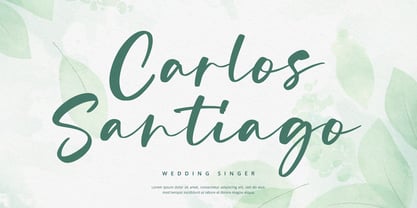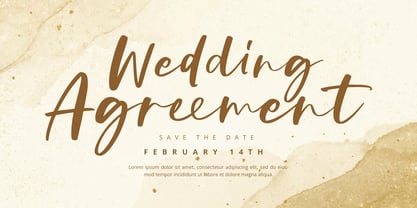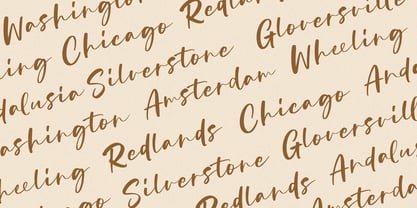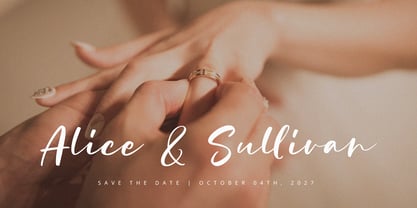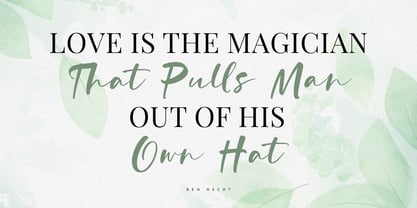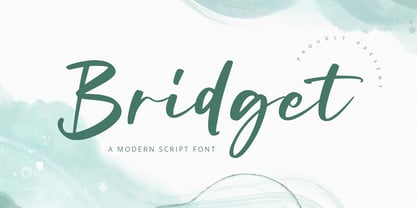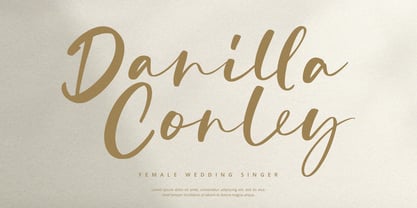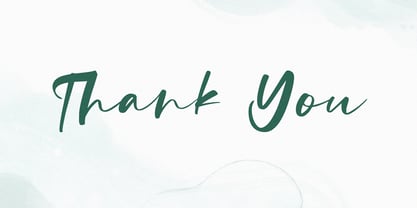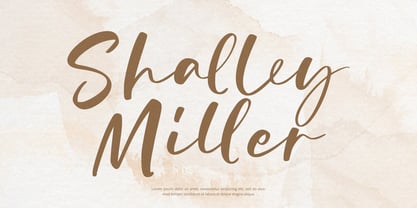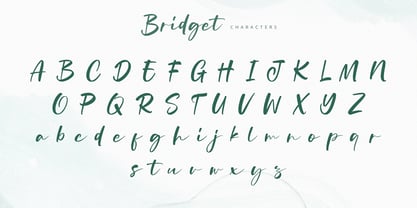
Bridget
The Bridget Font Family was designed by Nadia Salsabila and published by Alpaprana. Bridget contains 1 styles.
Briget Script is a modern script font with natural and clasic feels. It will be perfectly used for Branding, Logo Design, Lettering, Logotype, Clothing, Poster, magazine, packaging, posters, shopping bags, t-shirts, book covers, photography, special events and other design project. I hope you enjoy this font. If you have any questions please don't hesitate to drop me a message :) Best, Alpaprana